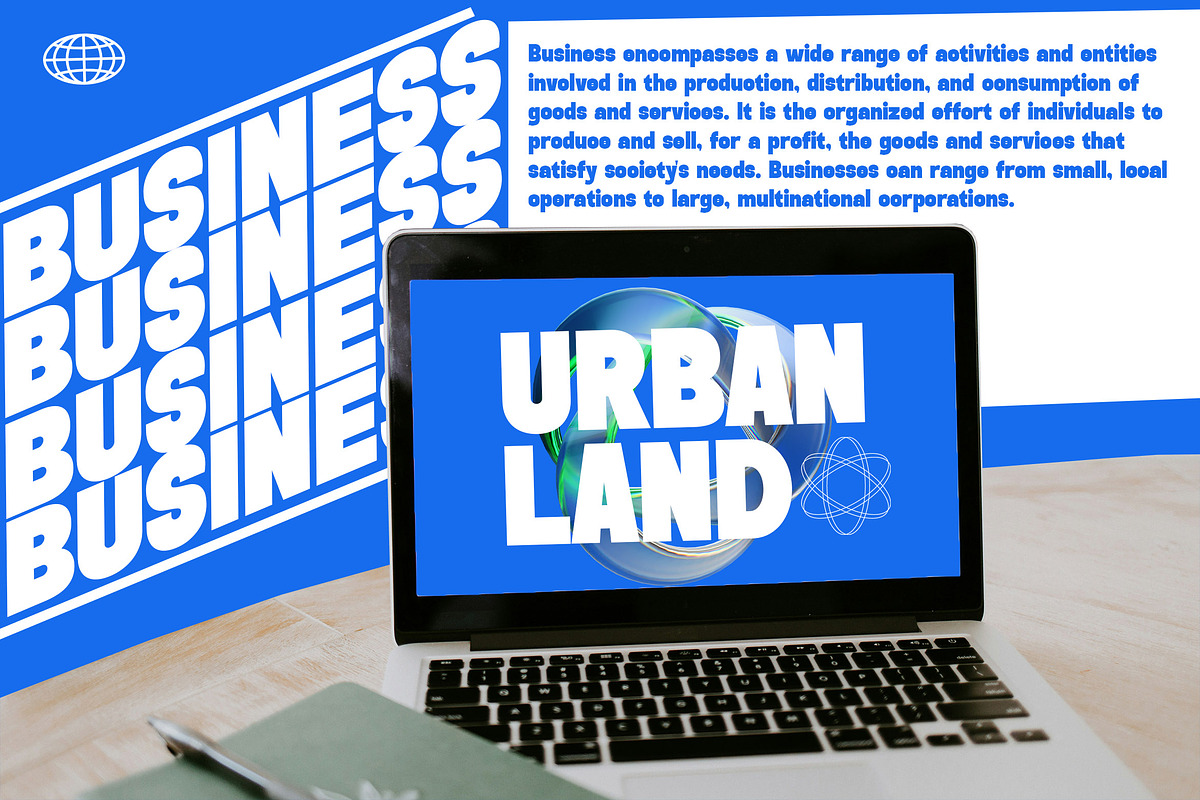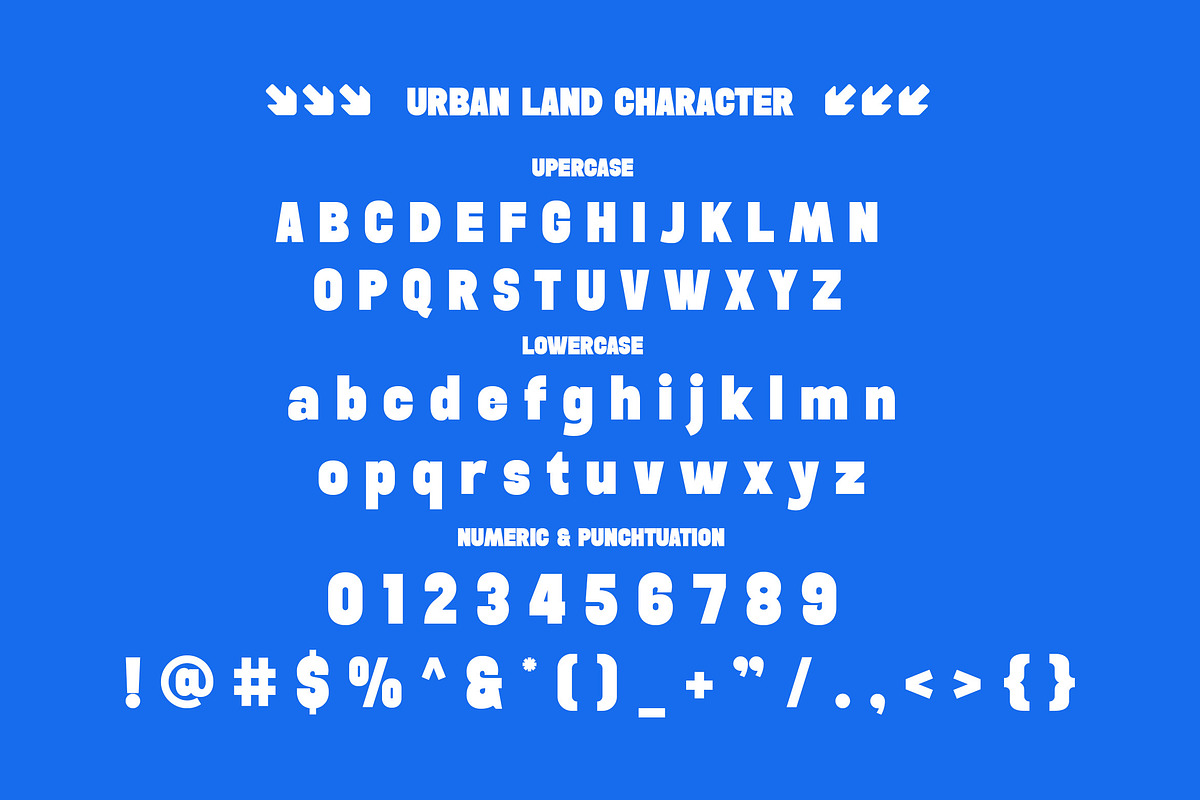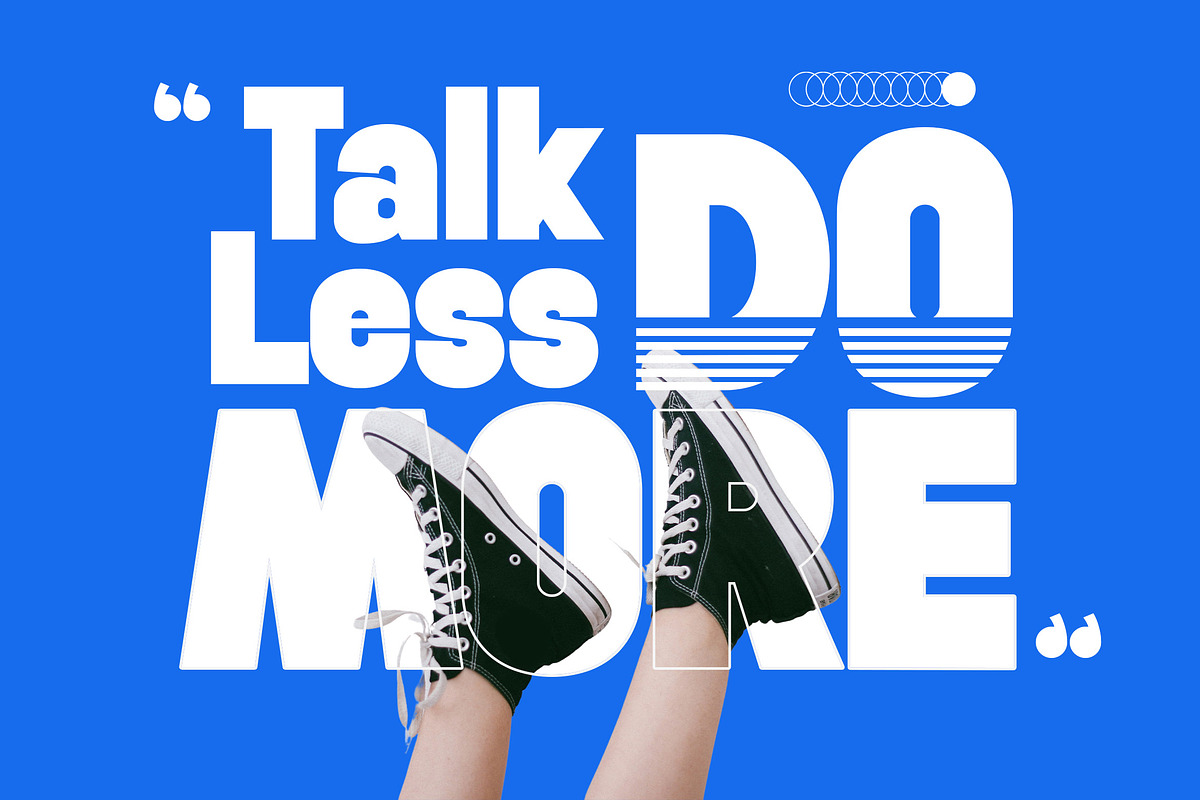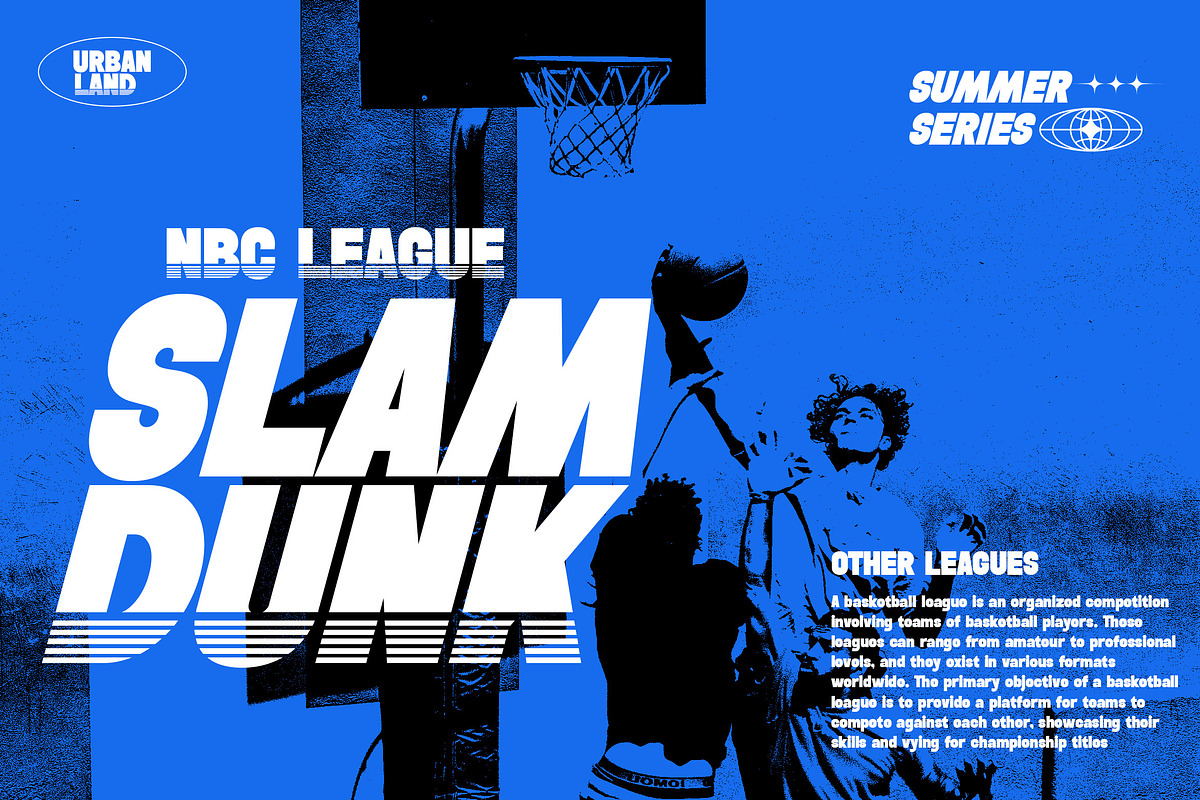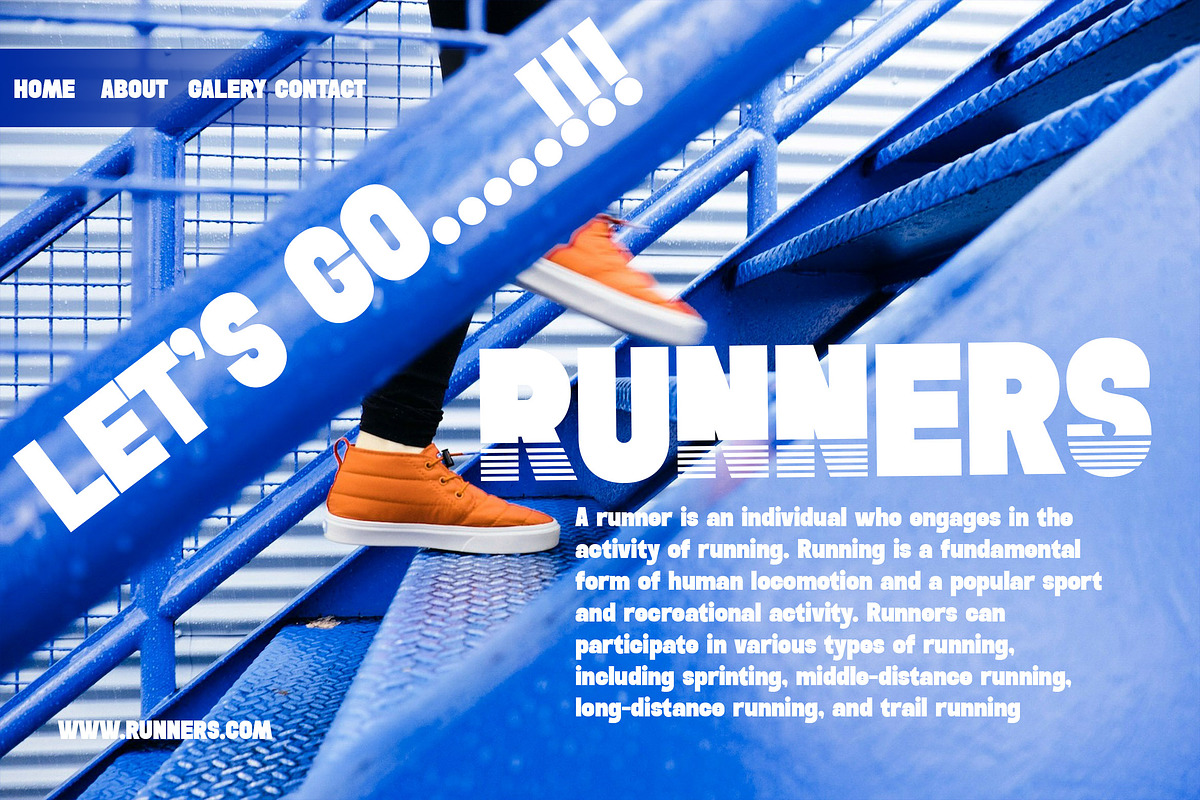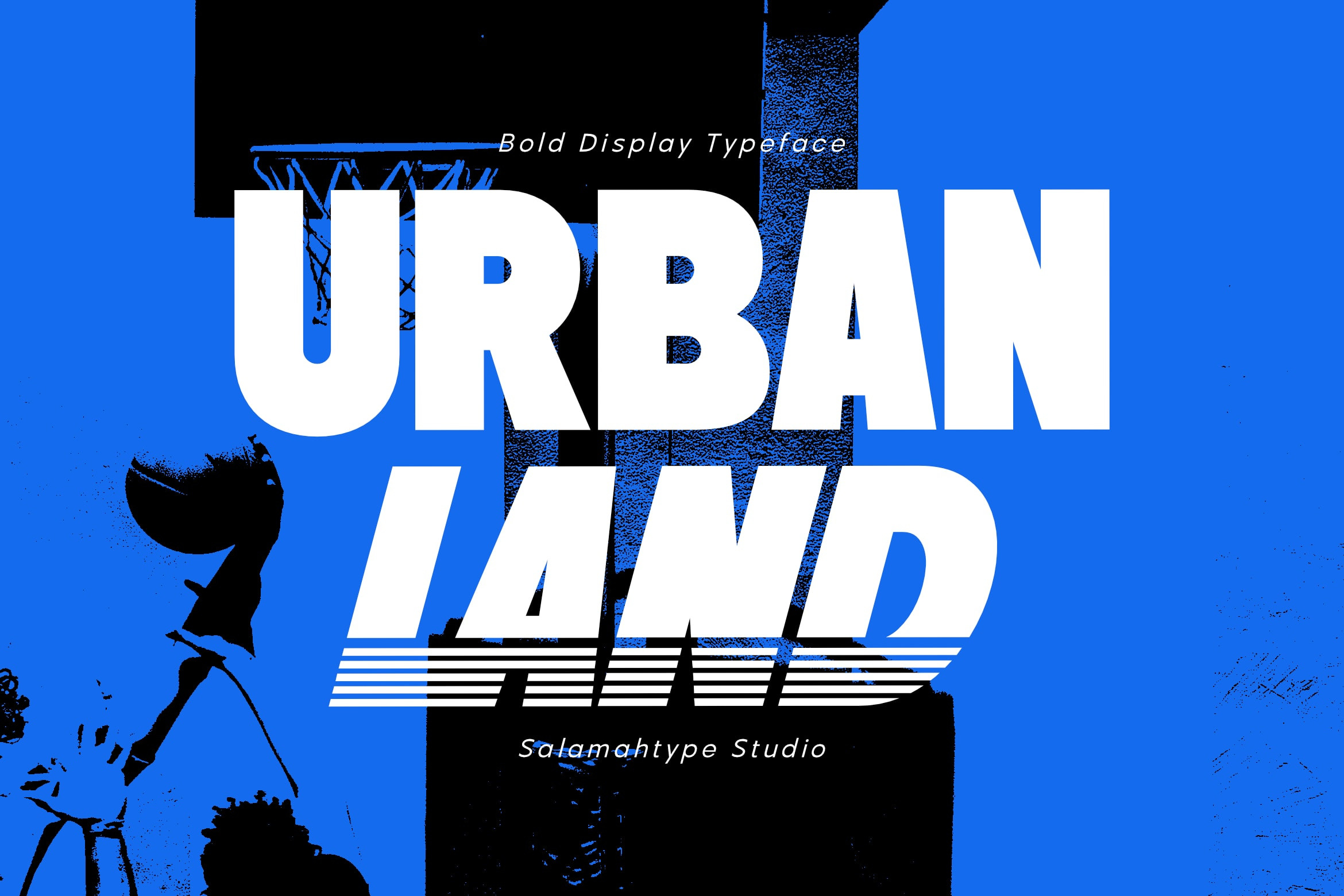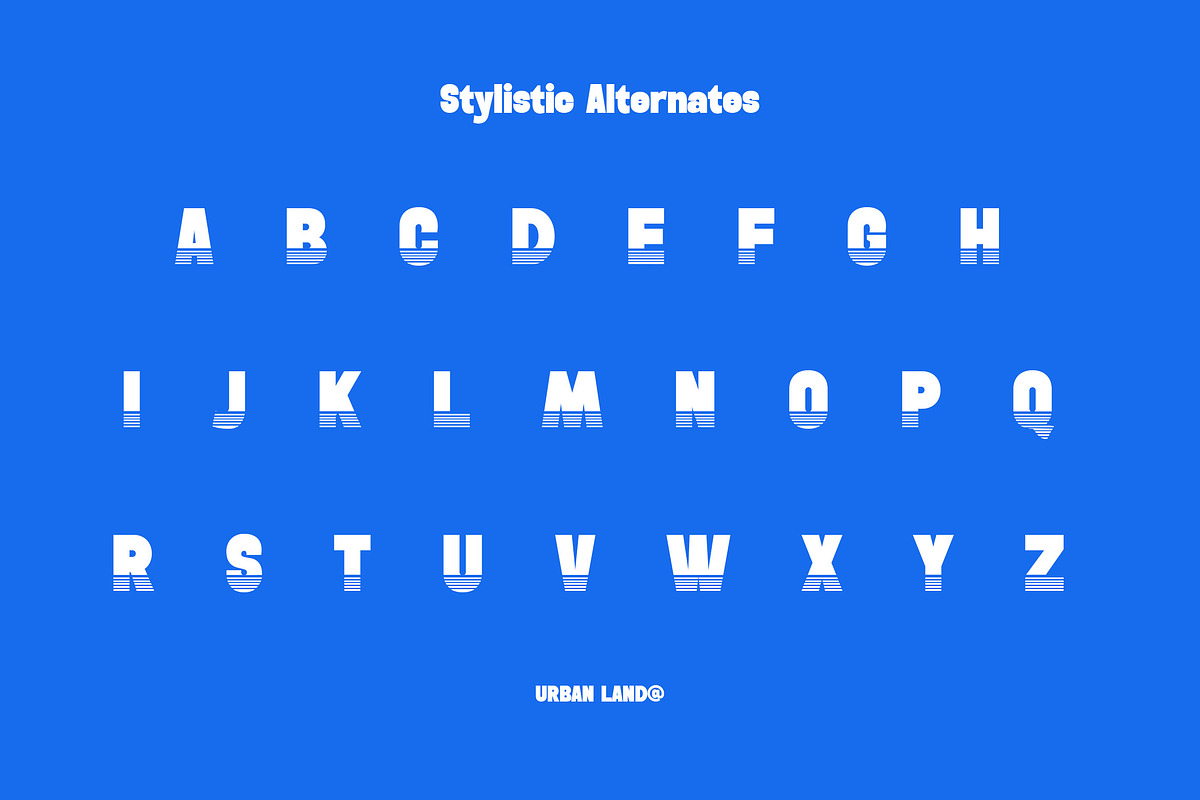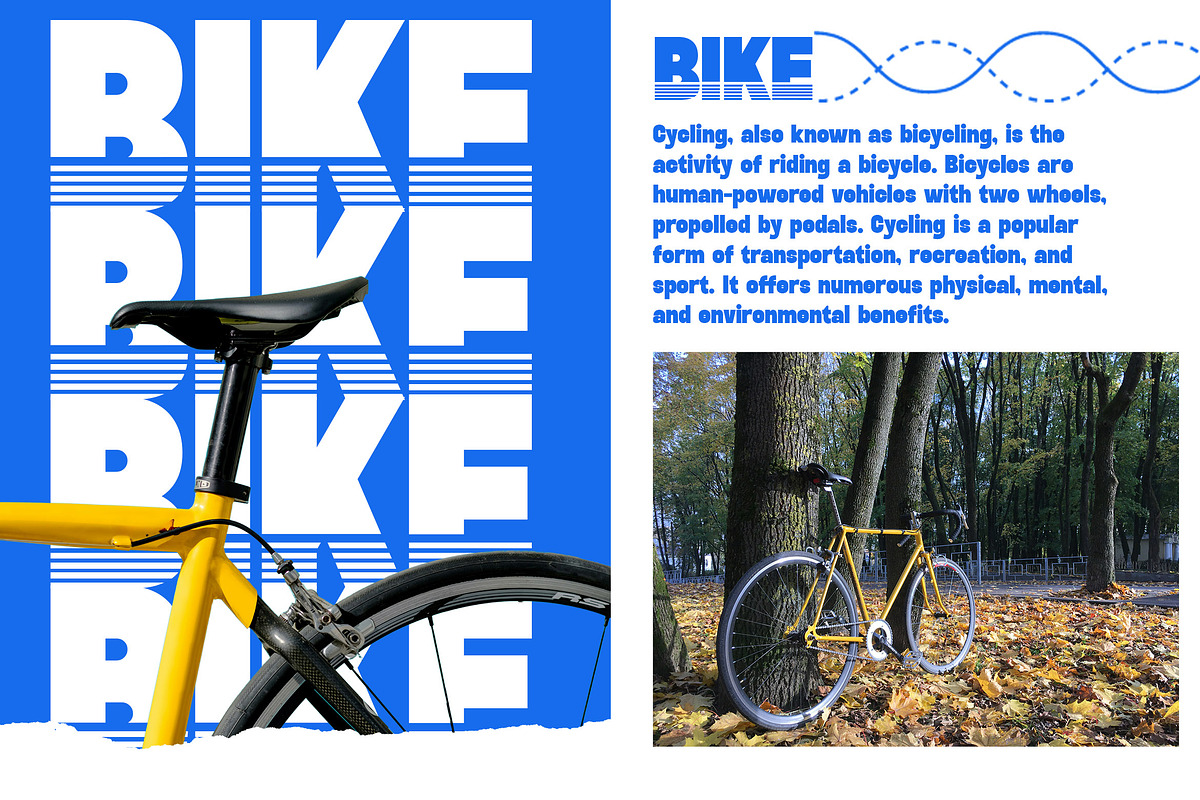
Urban Land - Funky Bold Font
Urban Land is a bold display typeface designed to make a strong impact. It features uppercase stylistic alternates, along with a complete set of uppercase and lowercase letters. With multilingual support, this font is versatile and perfect for various design needs. Whether you’re working on a sports-themed project, posters, logos, websites, packaging, or branding, Urban Land adds a powerful and dynamic touch to your designs. Its bold and confident style makes it an excellent choice for eye-catching visuals and modern branding.
Urban Land includes:
- Uppercase Lowercase
- Regular and Italic Style
- Symbol and Punctuation